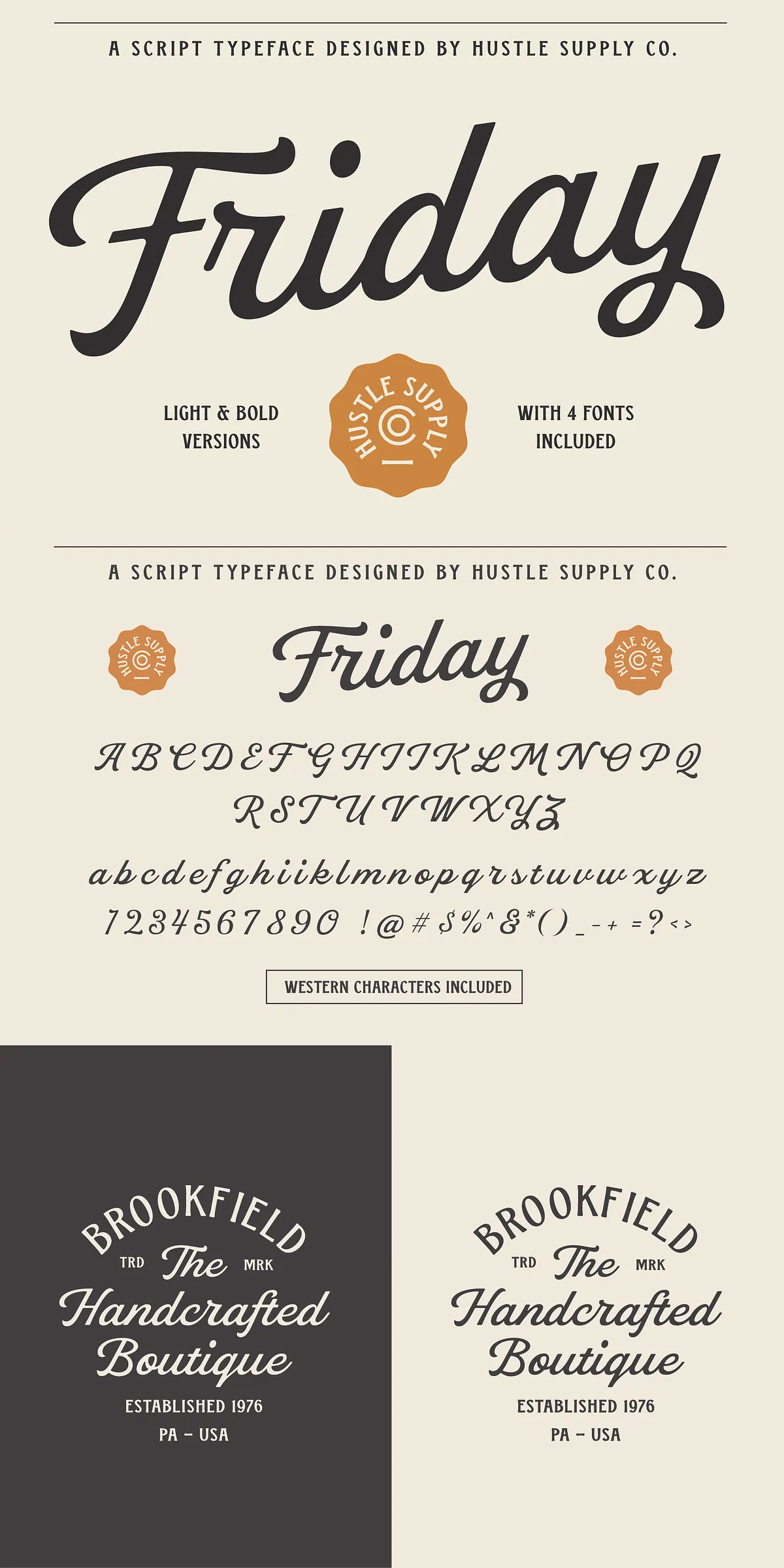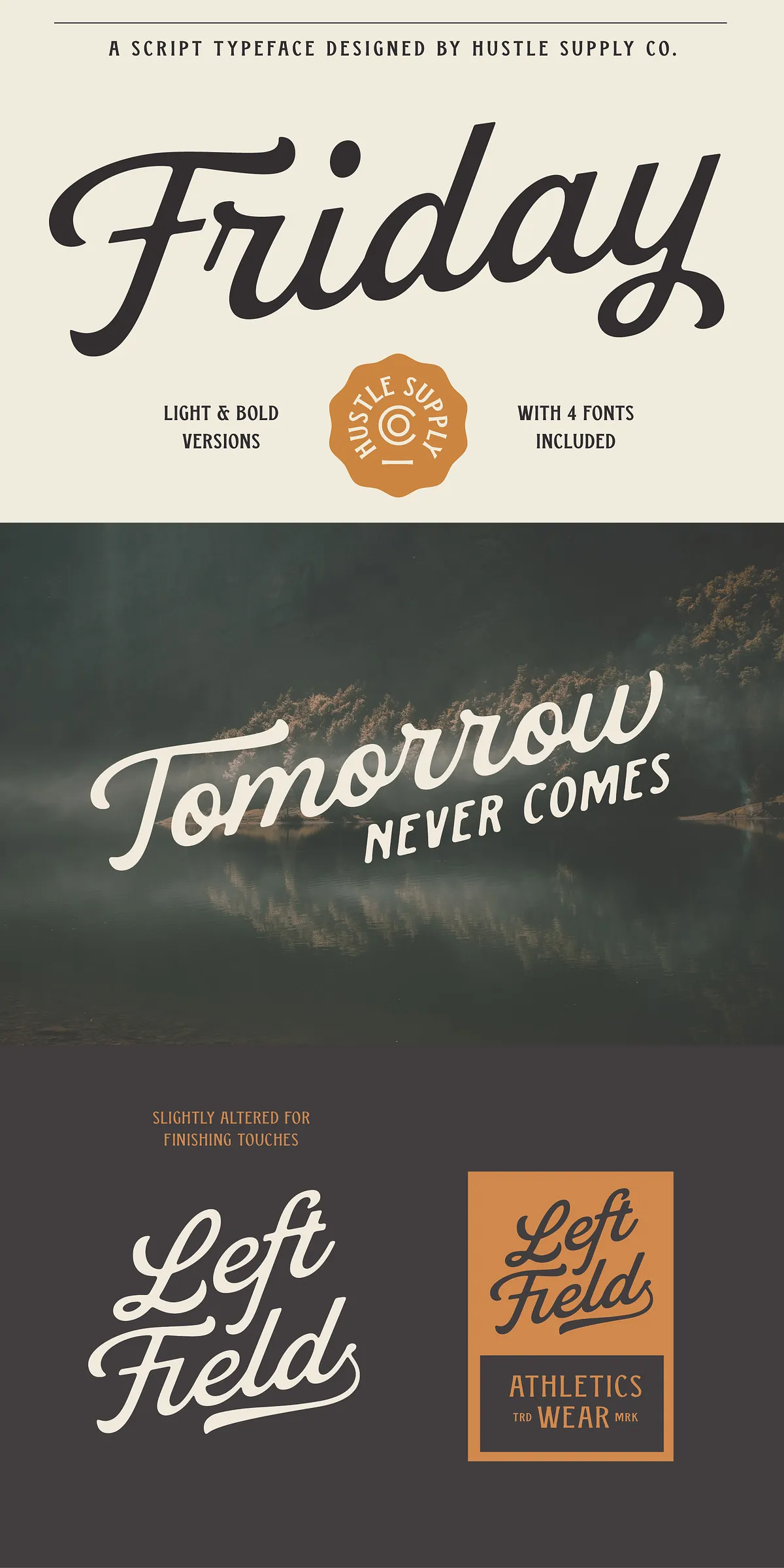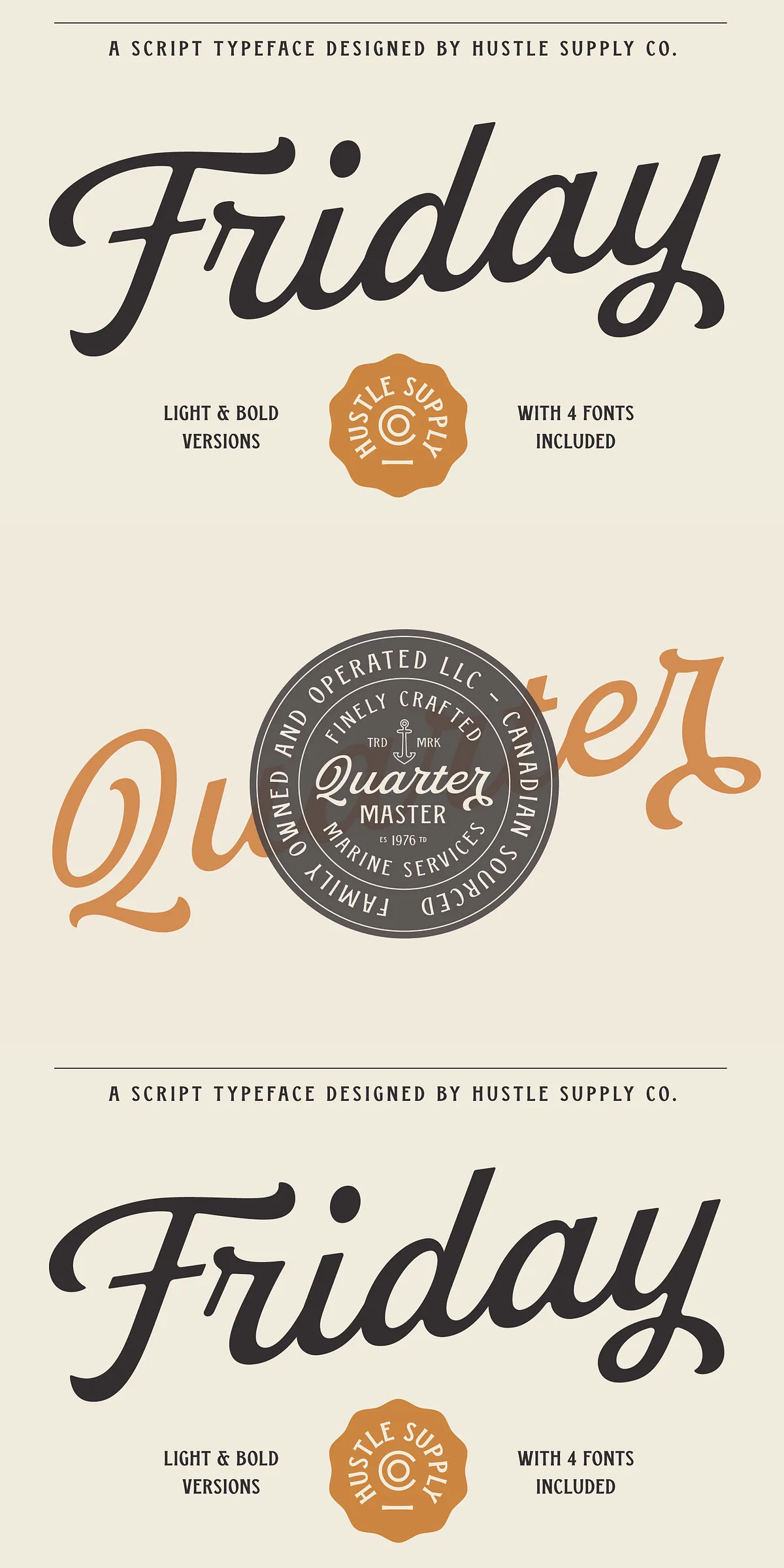
Unleash the spirit of retro sign painting, classic baseball uniforms, and old-school restaurant branding with Friday Script Font — a dynamic, expressive script that brings character, energy, and personality to every project. Inspired by the wild, hand-crafted charm of mid-20th-century signage, Friday Script gives your design work an authentic, one-of-a-kind edge that stands out in a sea of generic typefaces.
Why Friday Script Is a Game-Changer for Designers
More than just a script font, Friday Script is a full design toolkit built for versatility and impact. With multiple stylistic variants and robust typographic features, it empowers you to deliver unique, customized results — whether you’re crafting a logo, designing merchandise, or creating eye-catching headlines. Here’s what makes it stand out:
- 4 Distinct OTF Versions – Choose from Light, Regular, Rounded, and Rough treatments, each offering a unique personality and tone. Switch between clean and edgy styles with ease.
- Swashy, Expressive Characters – Rich in ornamental flourishes and dynamic strokes, making every letter feel personalized and hand-crafted.
- Western European Character Support – Full language coverage ensures your text remains accurate and polished across global projects.
- Professional-Grade Performance – High-resolution rendering ensures crisp results at any size, from small labels to massive billboards.
Perfect for Designers Who Demand Impact and Uniqueness
Friday Script isn’t just for pretty lettering — it’s built for real-world design challenges. Use it to create striking visuals that capture attention and build brand identity:
- Branding & Logos – Develop memorable, vintage-inspired brand marks that feel authentic and timeless.
- Apparel & Merchandise – Add bold flair to t-shirts, hats, mugs, and tote bags with a hand-painted, custom look.
- Headlines & Poster Design – Command attention with energetic, expressive typography for events, concerts, and campaigns.
- Restaurant & Cafe Branding – Recreate the nostalgic charm of classic diner signs and vintage menus.
- Product Packaging – Elevate packaging with a story-driven, character-rich font that speaks to your audience.
- Web & UI Design – Use selectively for hero sections, call-to-action buttons, or social media elements to add a creative punch.